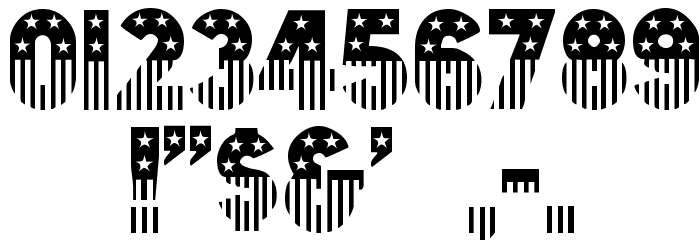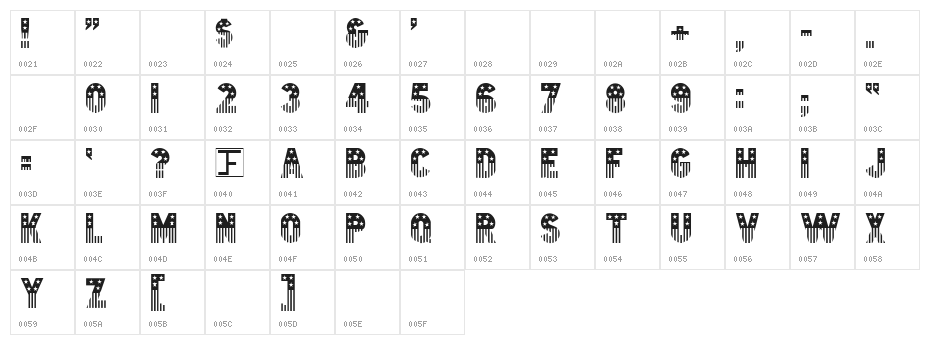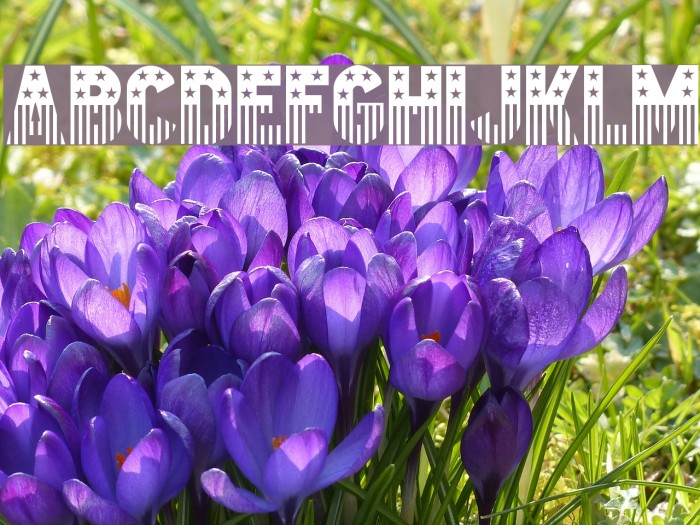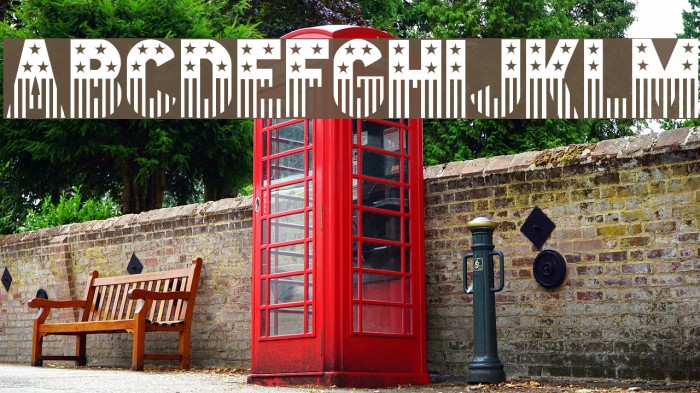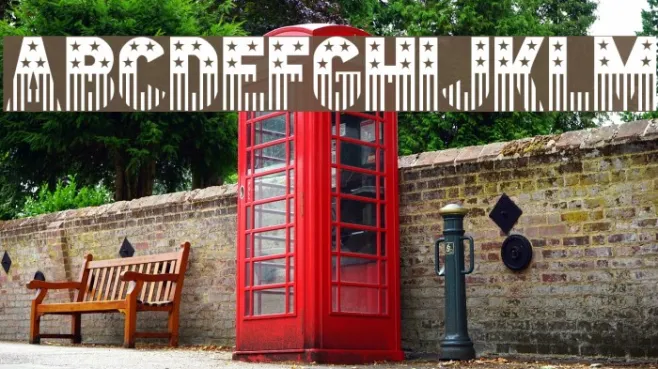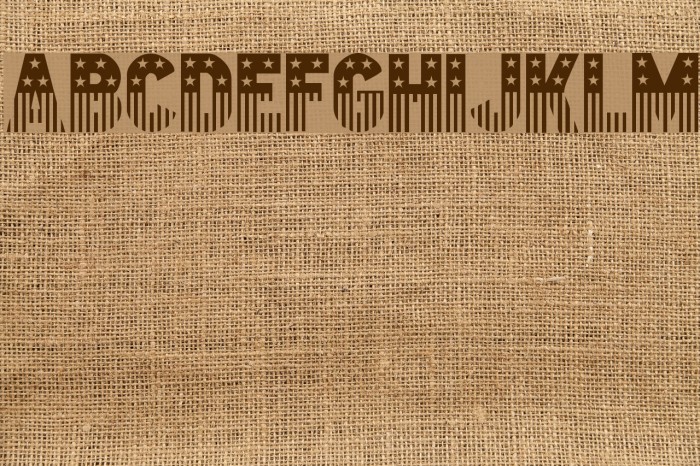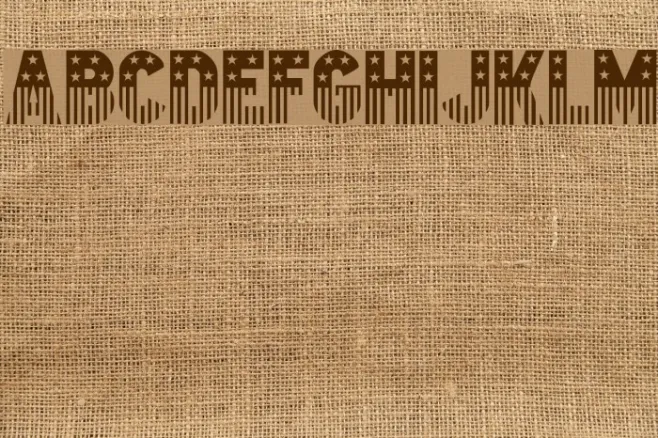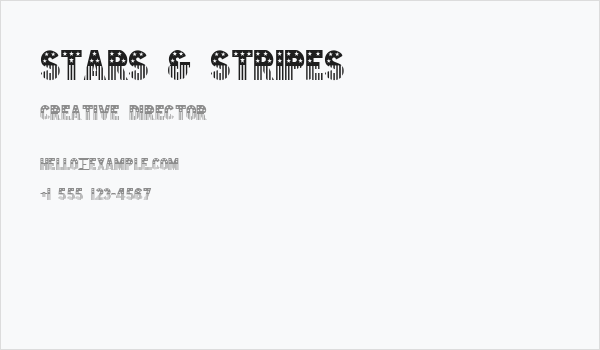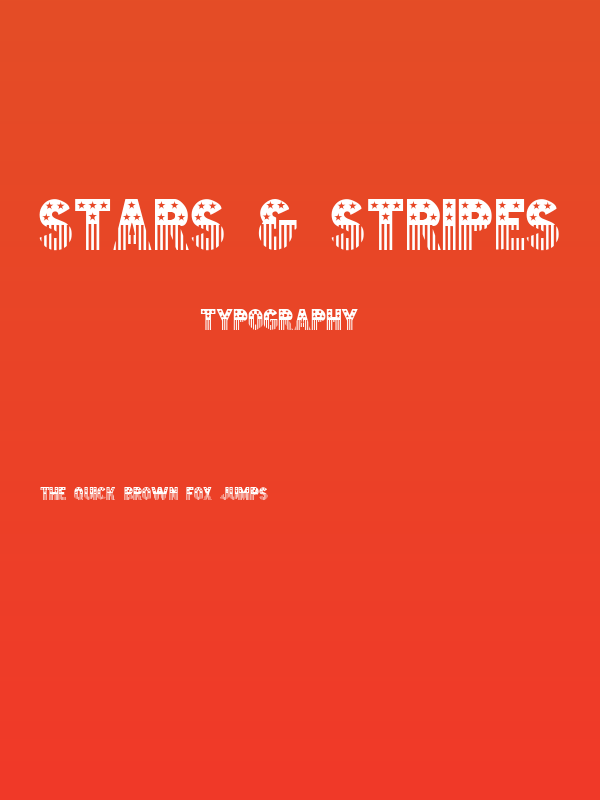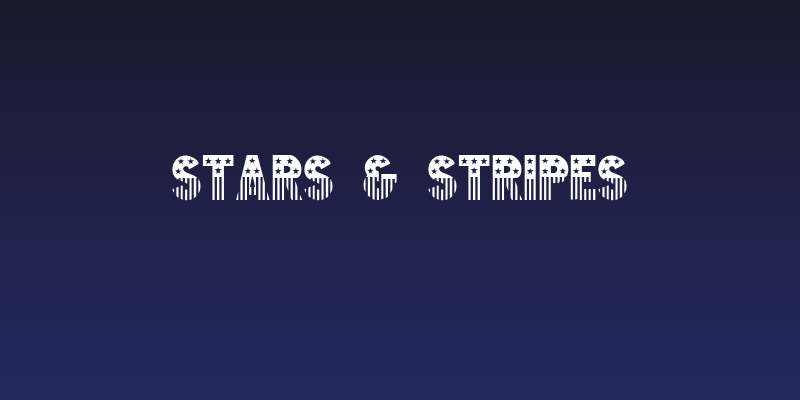
Stars & Stripes Font
Stars & Stripes Description
This font features a bold and striking design with a patriotic theme, incorporating stars and stripes into each character. The uppercase letters are adorned with stars in the upper half, while vertical stripes extend from the bottom, creating a visually dynamic effect. The numbers and special characters follow the same pattern, ensuring a cohesive look across all elements. The font's unique style makes it ideal for projects that require a strong, eye-catching aesthetic with a touch of national pride.
| Proposed Projects | Ideal for patriotic-themed posters, event invitations, branding for national holidays, and merchandise designs. |